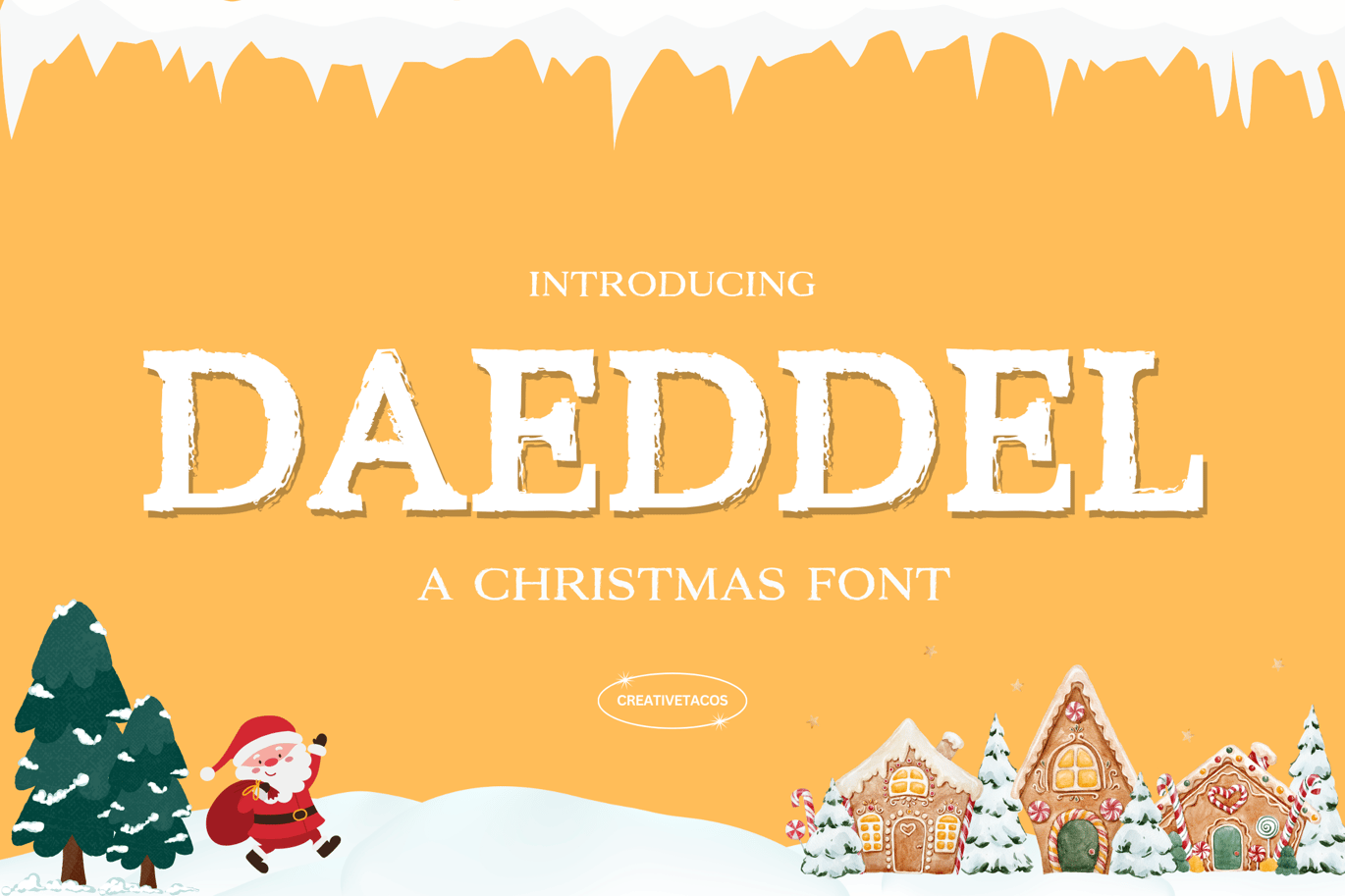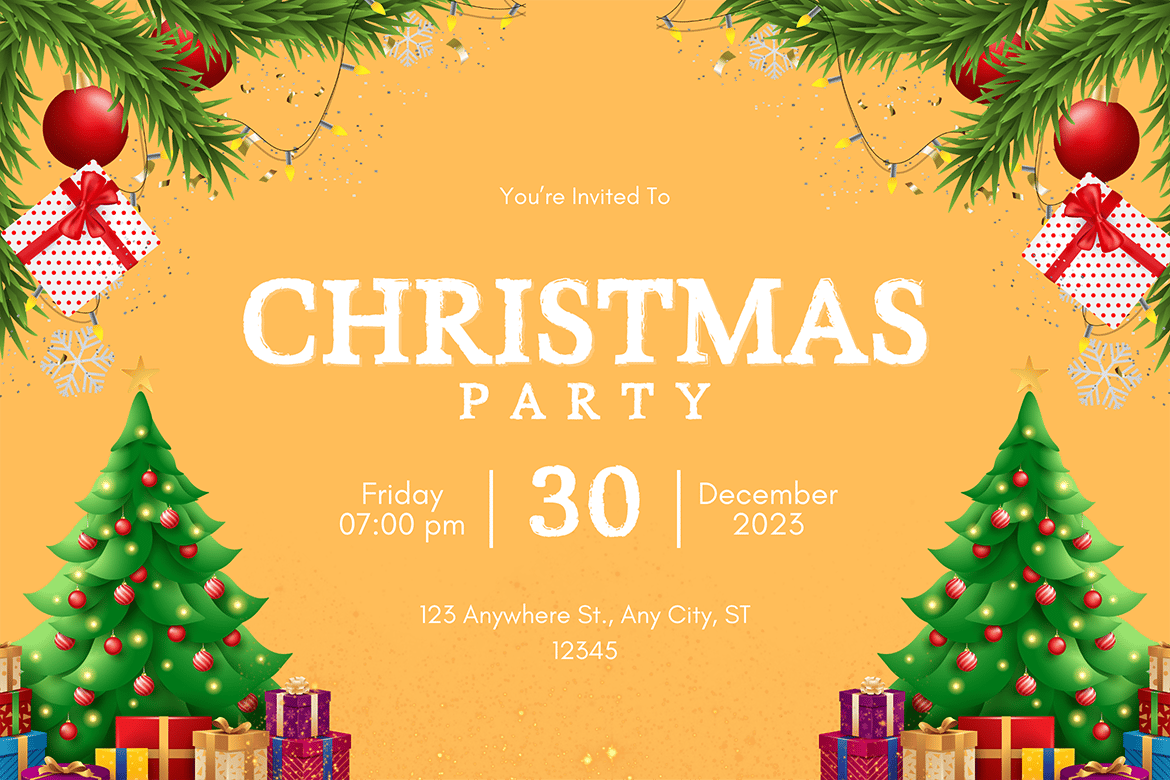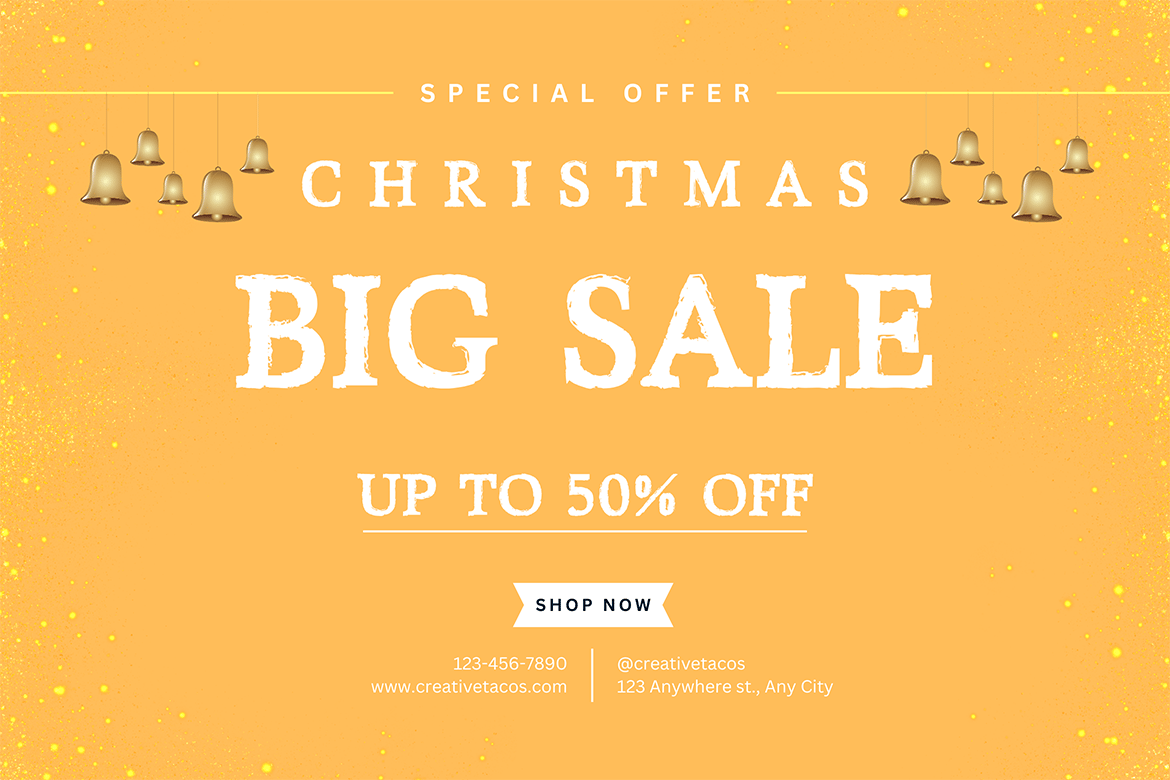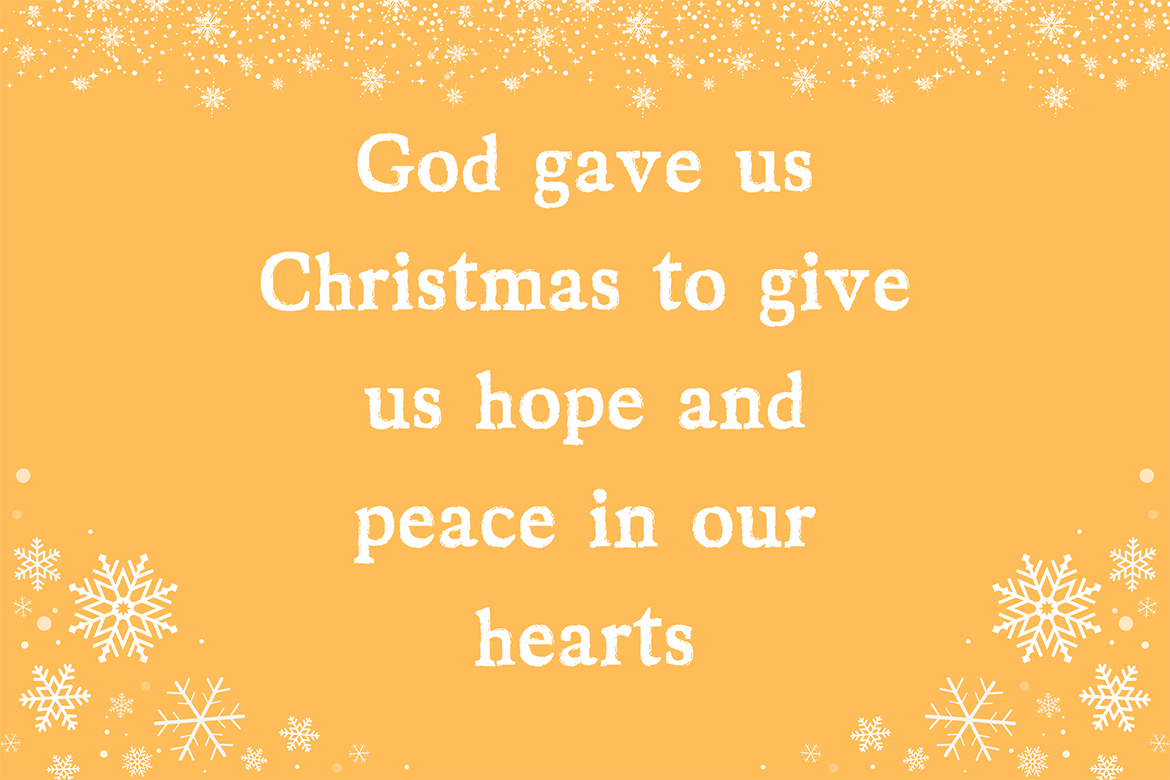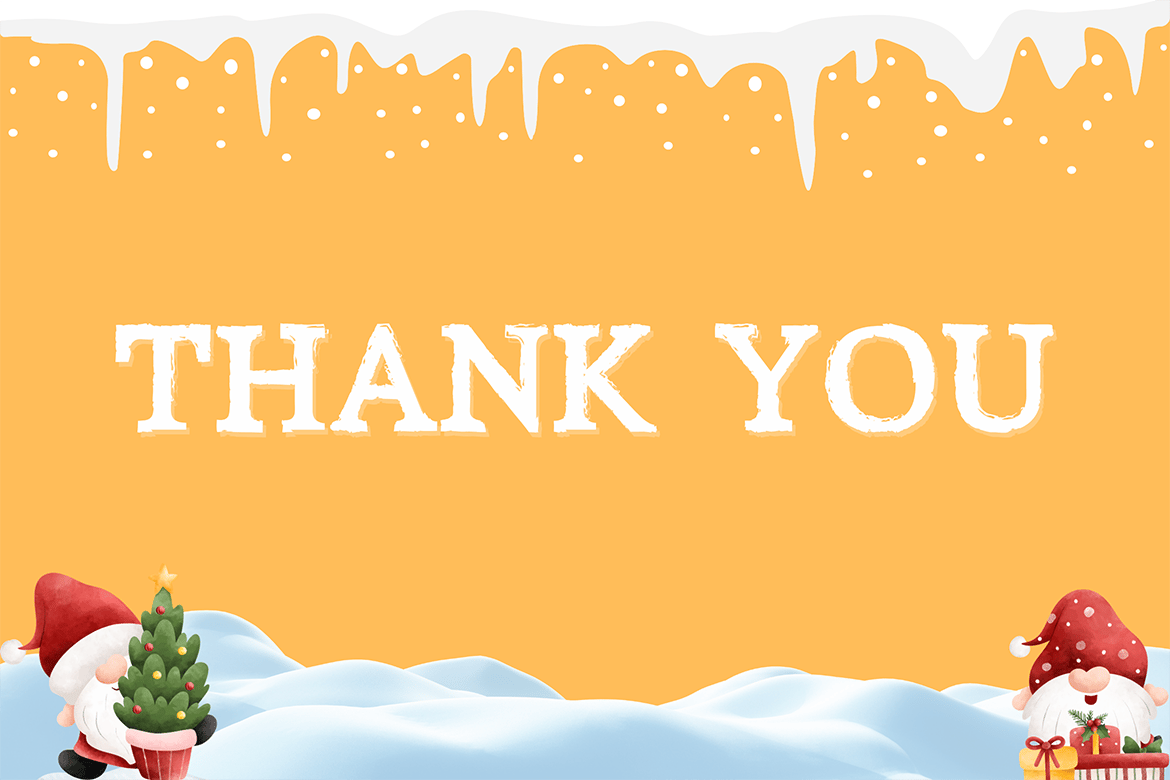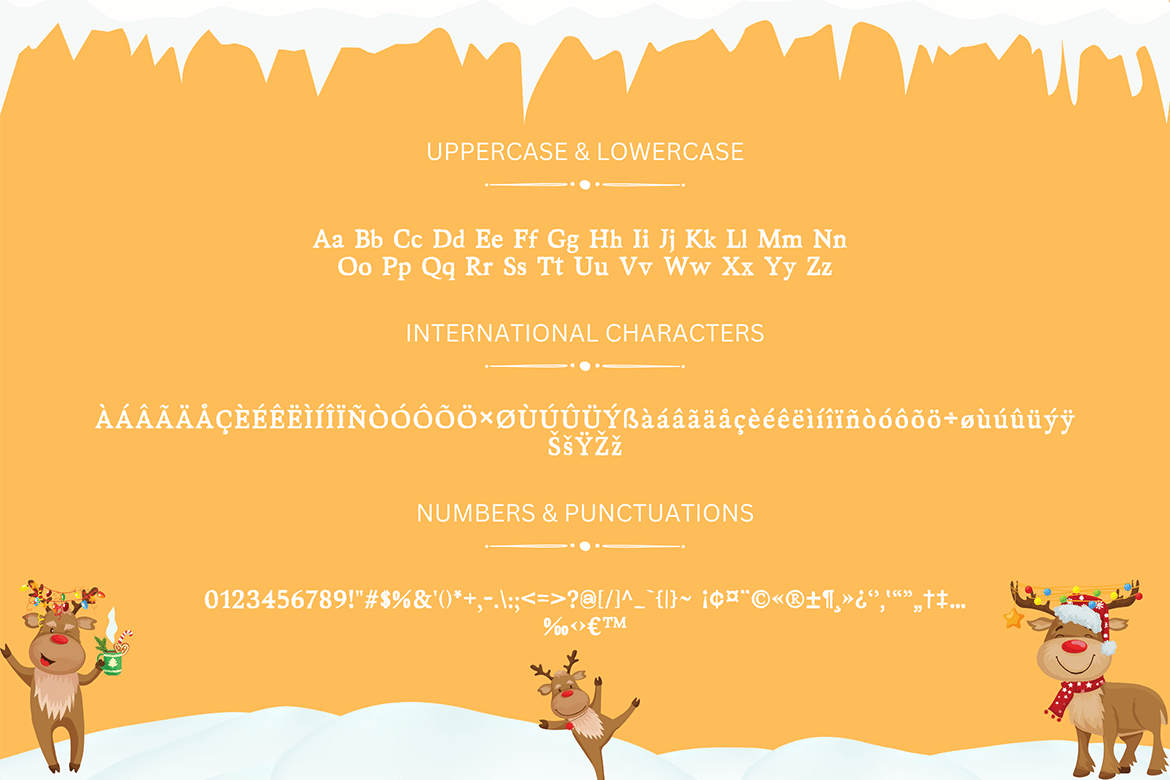
Daeddel Christmas Font
Daeddel Christmas Font is a versatile and visually appealing font that is perfect for adding a touch of elegance and style to your holiday-themed projects.
This font includes uppercase letters, lowercase letters, numbers, symbol and punctuation marks with multilingual support, allowing you to create complete and consistent designs.
Whether you’re creating holiday greeting cards, party invitations, social media graphic, or festive banners, this font will definitely make your text stand out. Its eye-catching appearance will instantly attract attention and create a lasting impression.
- Weight of the Font: Regular
- Big Letters (Uppercase)
- Small Letters (Lowercase)
- Numbers & Symbols
Here’s a sneak peek at the characters supported:
- All the letters from A-Z (uppercase and lowercase)
- All the numbers from 0-9
- All these special characters – !”#$%&'()*+,-./:;=?@[]^_`{|}~ ¡¢¤¨©«®±¶¸»¿‘’‚‛“”„†‡…‰‹›€™
- And a range of international characters like ÀÁÂÃÄÅÇÈÉÊËÌÍÎÏÑÒÓÔÕÖרÙÚÛÜÝßàáâãäåçèéêëìíîïñòóôõö÷øùúûüýÿŠšŸŽž